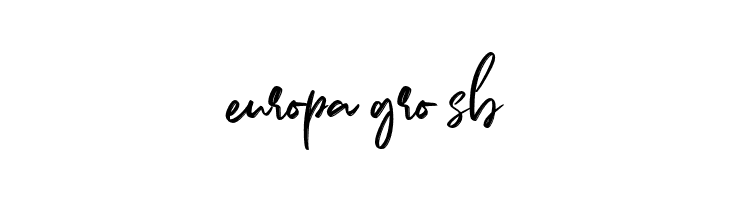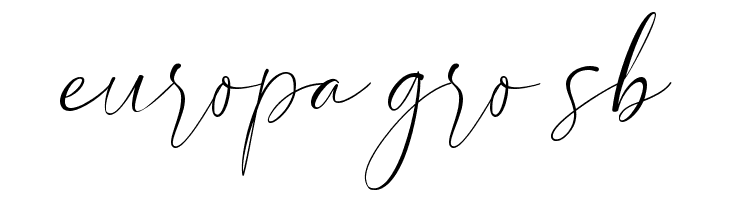
A lively, cursive handwritten font with smooth, flowing strokes.
A modern, elegant script font with flowing, connected characters.
A lively, handwritten font with fluid, sweeping strokes and a playful, informal style.
A flowing, elegant cursive font with graceful curves and decorative appeal.